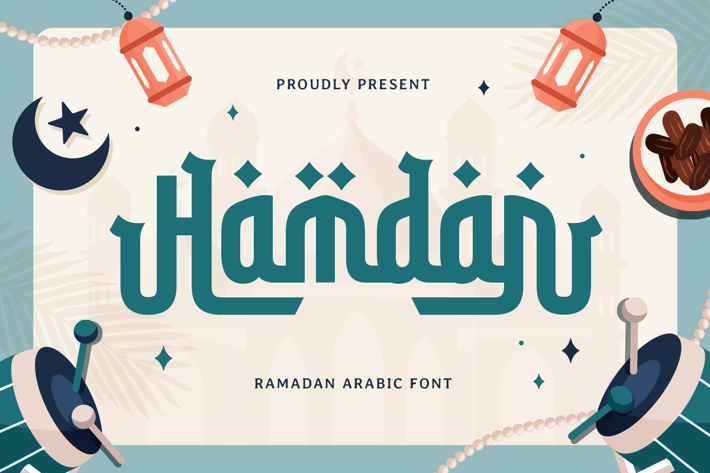
Hamdan - Ramadan Arabic Font
Celebrate Ramadan with Elegance
Hamdan is a beautifully crafted Arabic font inspired by the sacred spirit of Ramadan. Its elegant curves and refined details bring a sense of cultural richness to any design.
Designed for Festive Projects
This font is perfect for Ramadan greetings, event posters, branding, packaging, and promotional materials, adding a festive and traditional touch to your designs.
Timeless and Versatile
Hamdan seamlessly blends modern design with Arabic tradition, ensuring your projects resonate across diverse audiences and occasions.